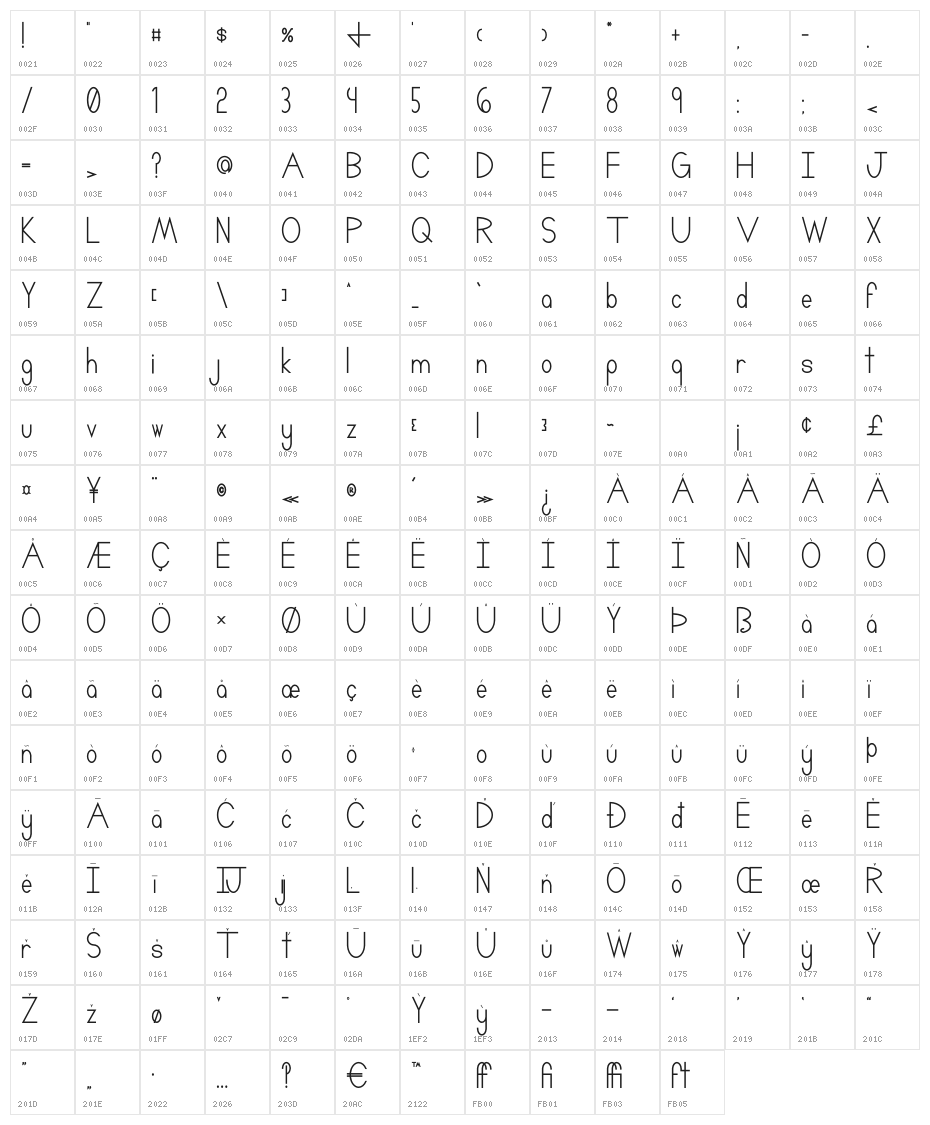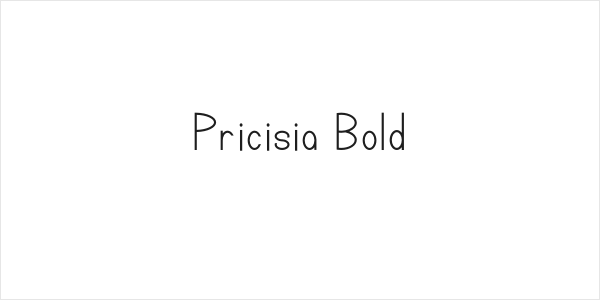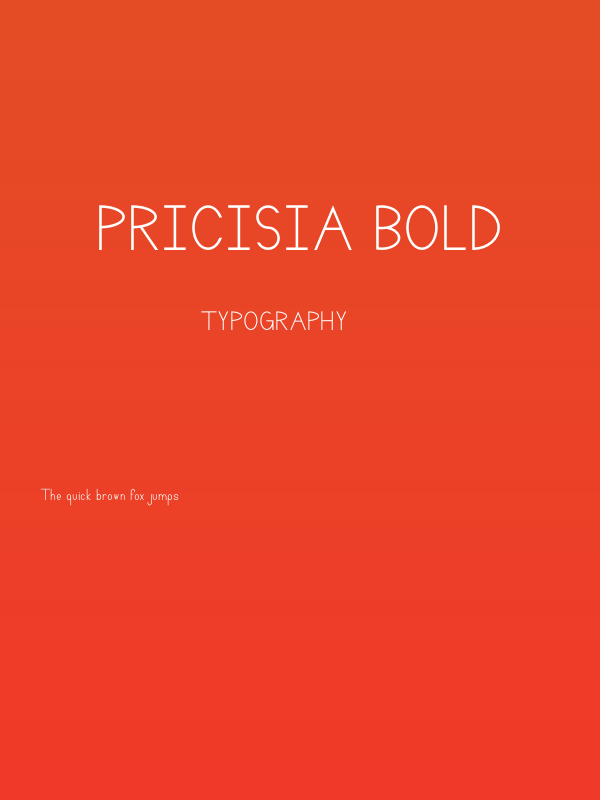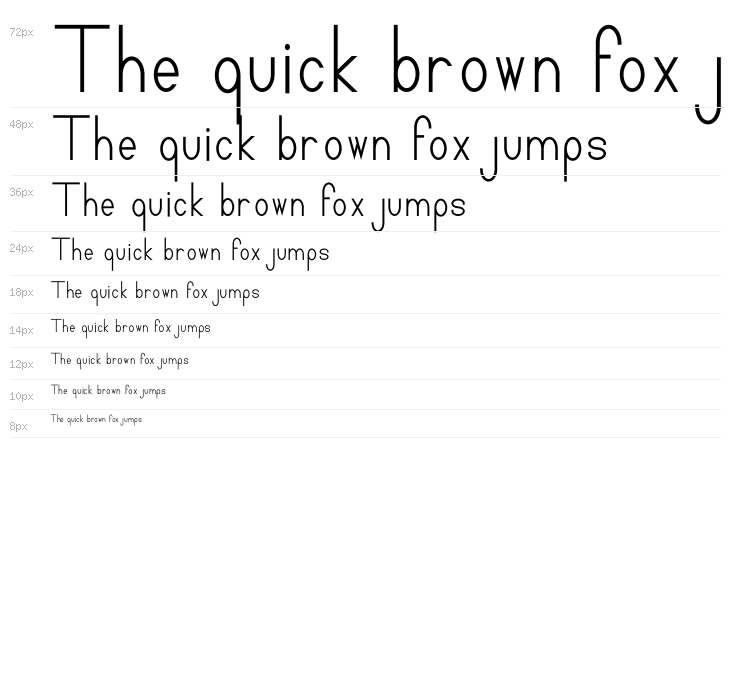
Pricisia Bold Font
Pricisia Bold Description
This font features a clean and modern design with a geometric structure. The uppercase letters are tall and narrow, creating a sleek and sophisticated appearance. The lowercase letters maintain a consistent height, with rounded edges that add a touch of softness to the overall look. The numerals are uniform and align well with the letterforms, ensuring readability. Special characters are distinct and well-integrated, complementing the font's minimalist style. This font is versatile, suitable for both digital and print media, and can be used in a variety of design contexts.
Use CaseHeadlines, Logos, Branding
Proposed ProjectsIdeal for branding, editorial design, web design, and advertising campaigns.